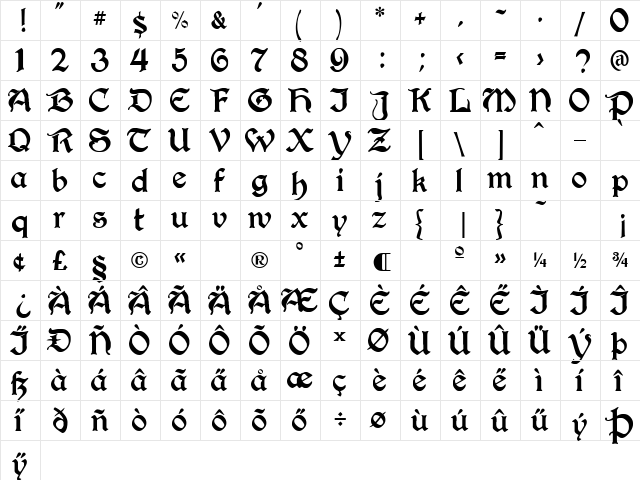
Berry Rotunda Regular
| Designer | Inspired by Nicolas Jenson & William Morris |
Design Context for Berry Rotunda Typeface
Berry Rotunda is a composed and adaptable typeface that performs quietly and consistently across a wide range of design contexts.